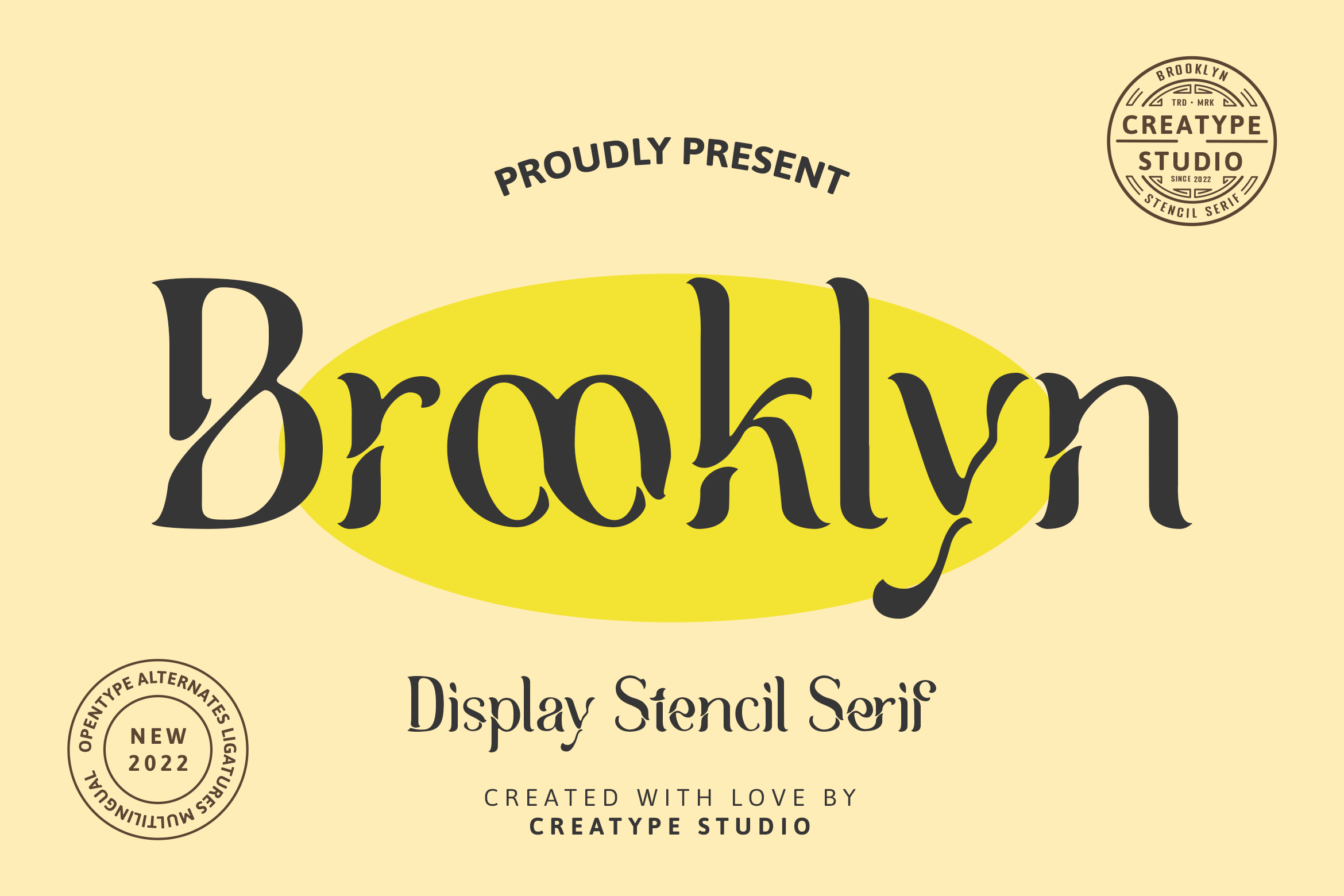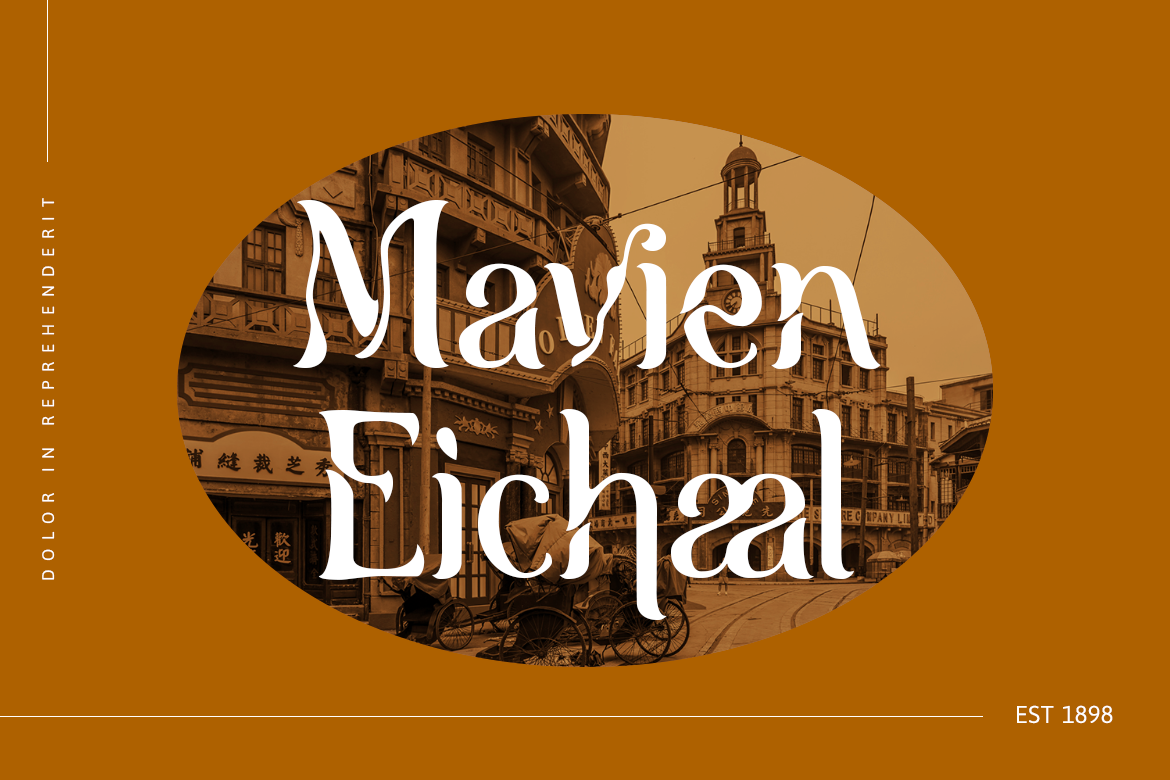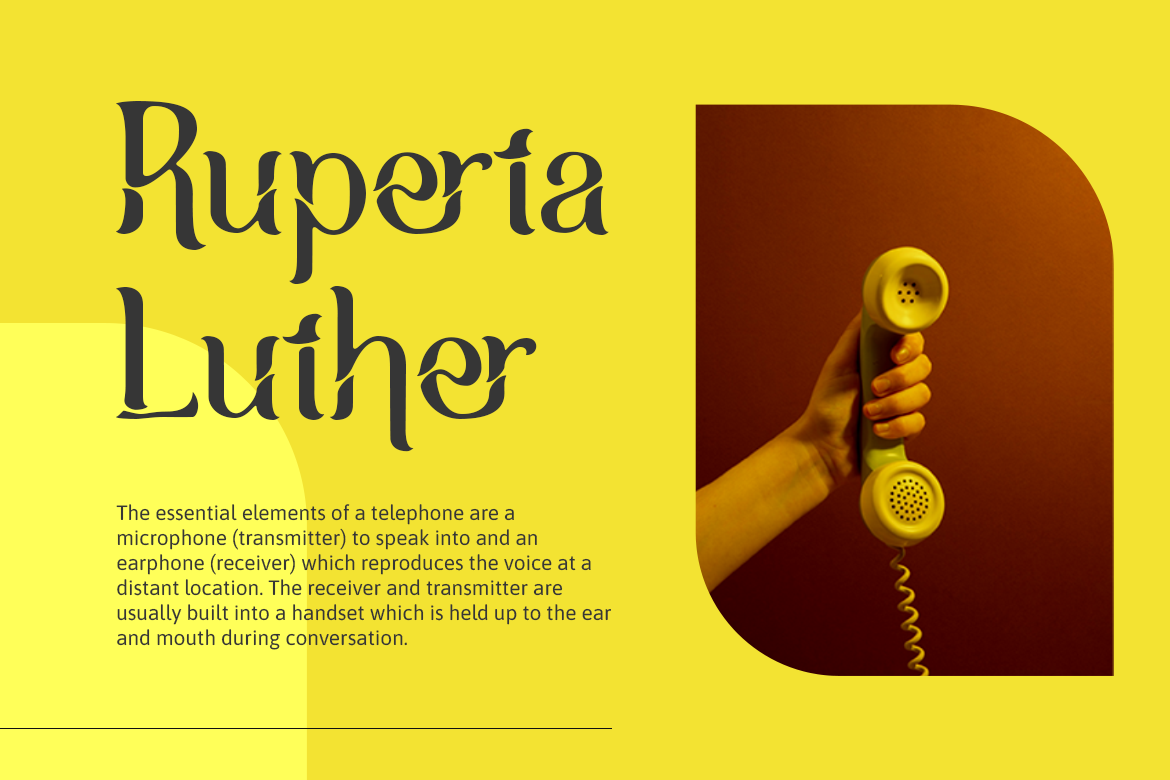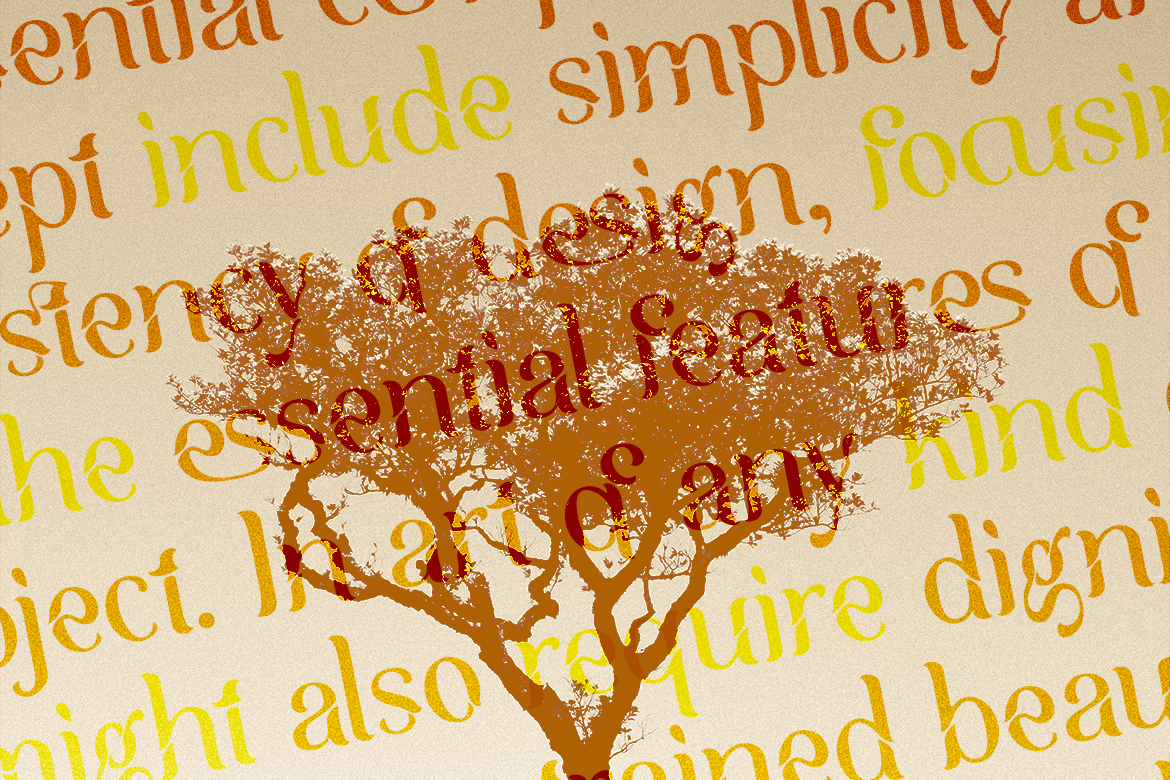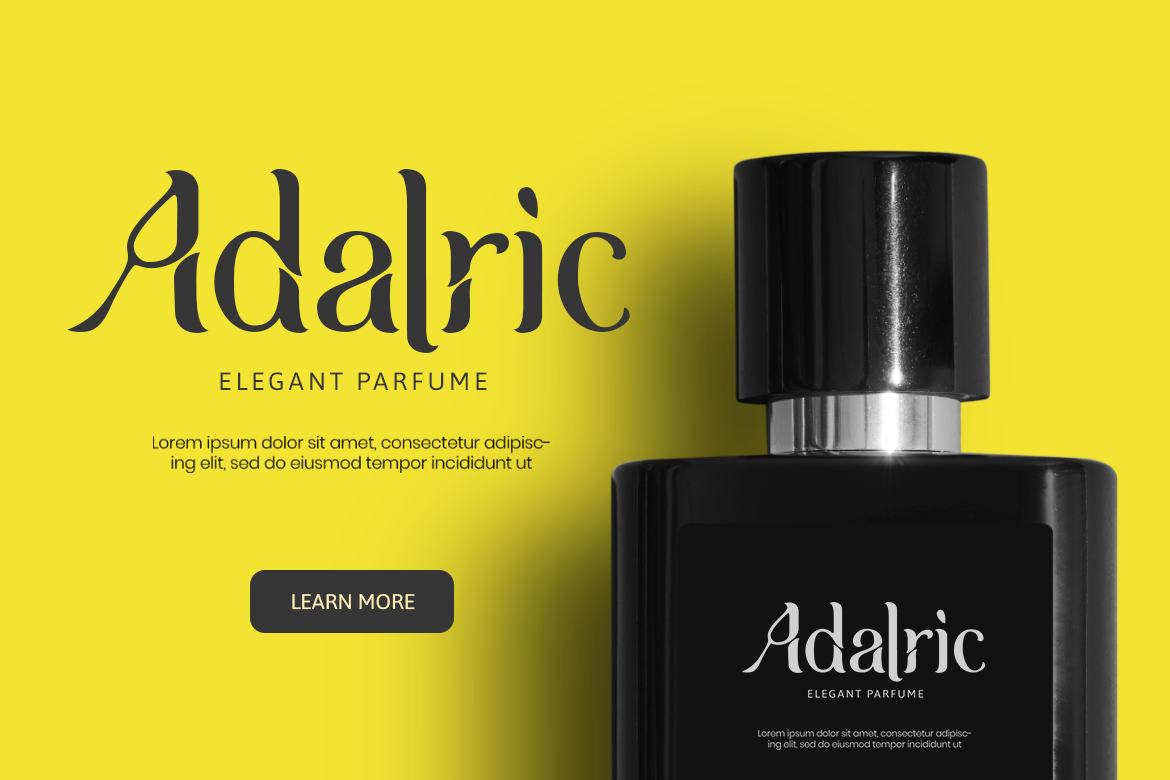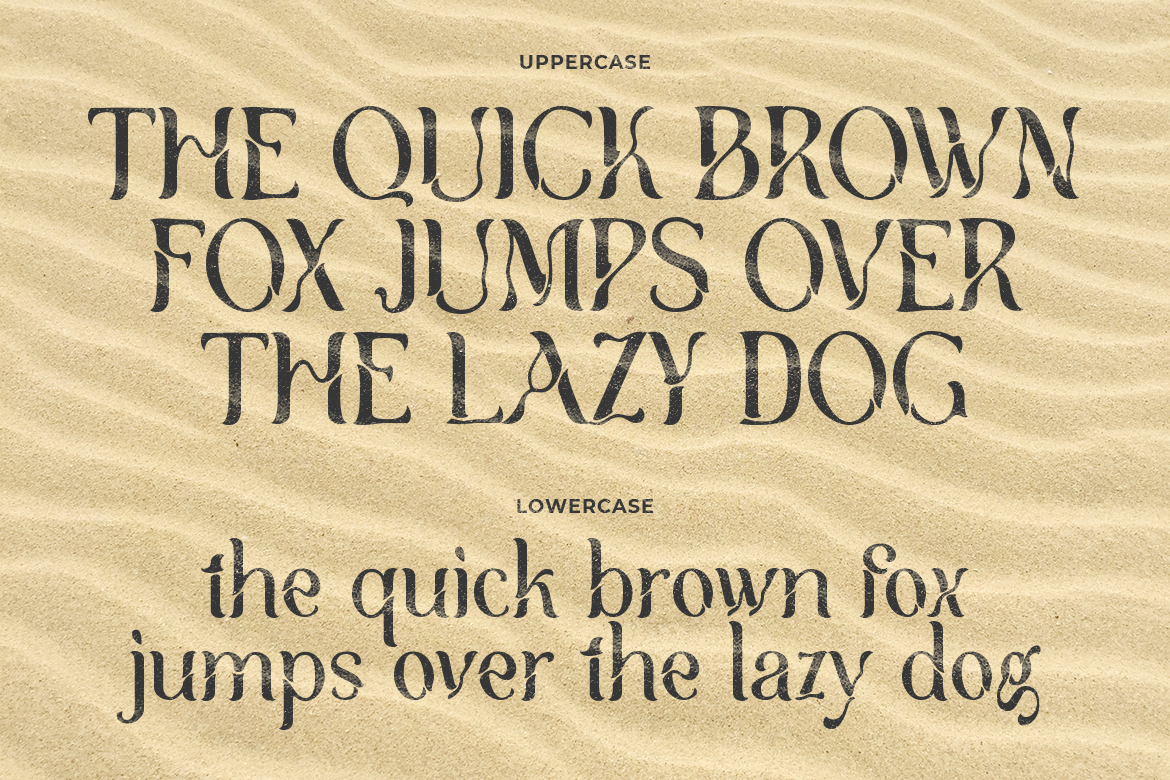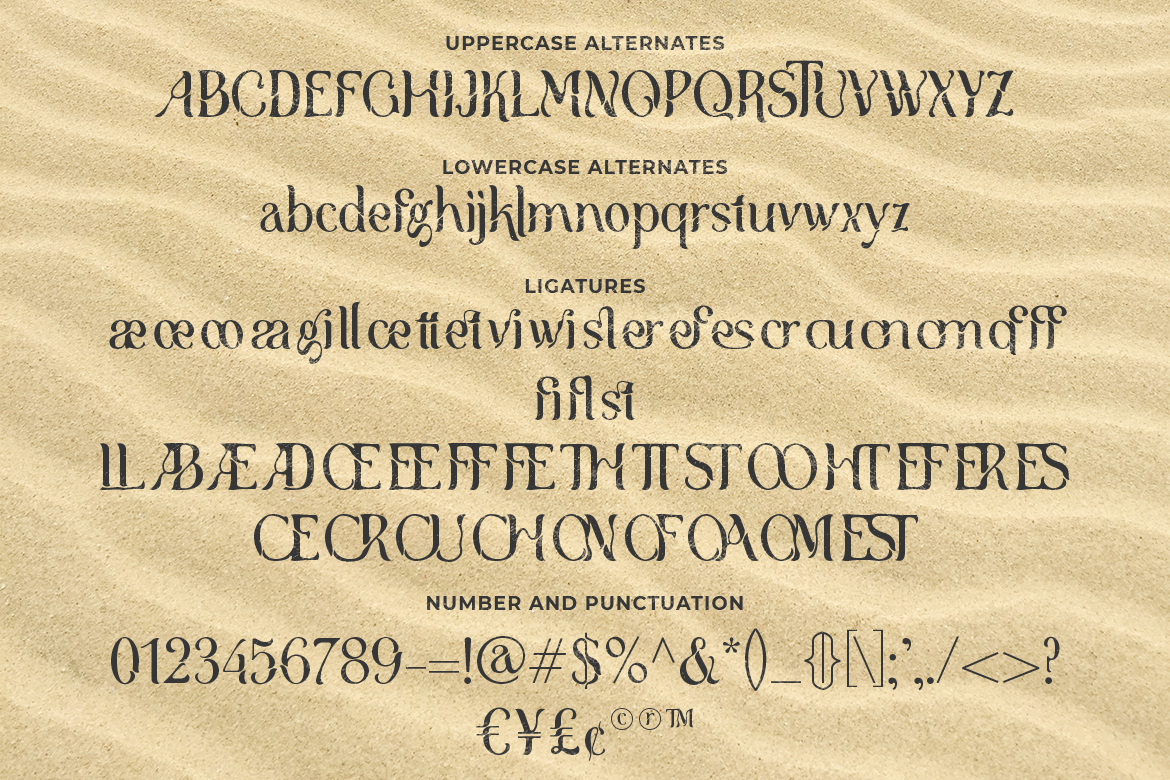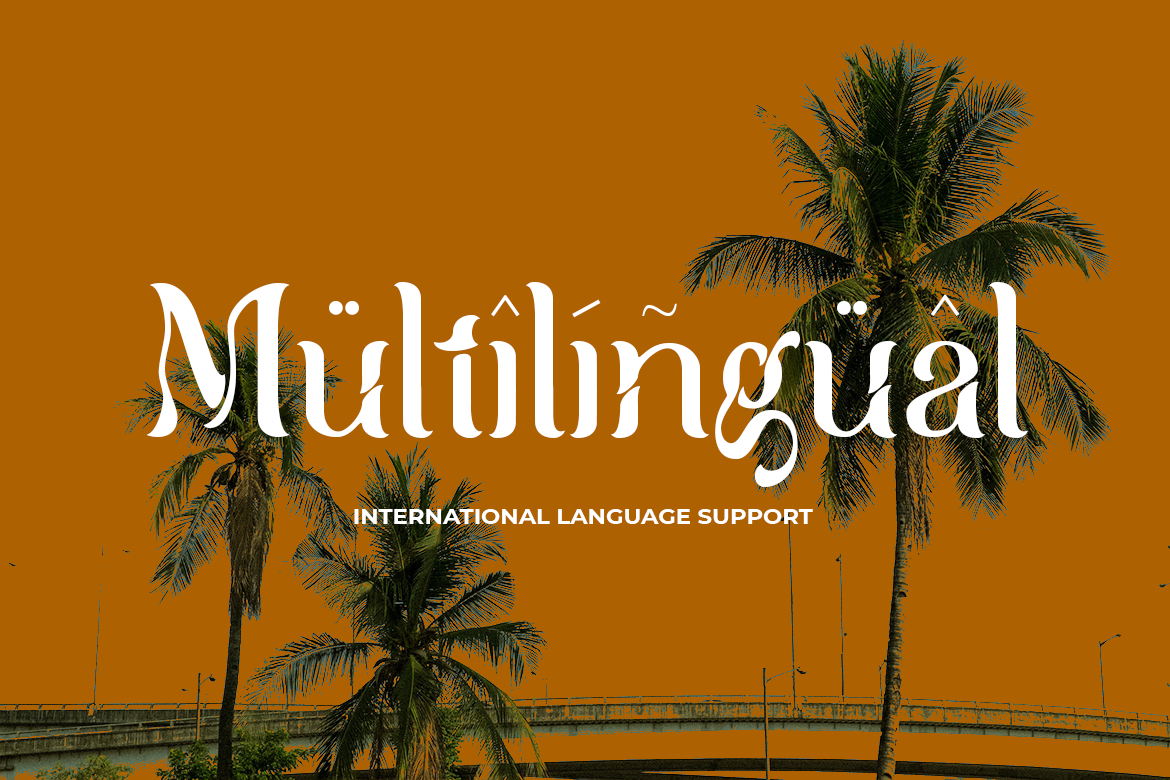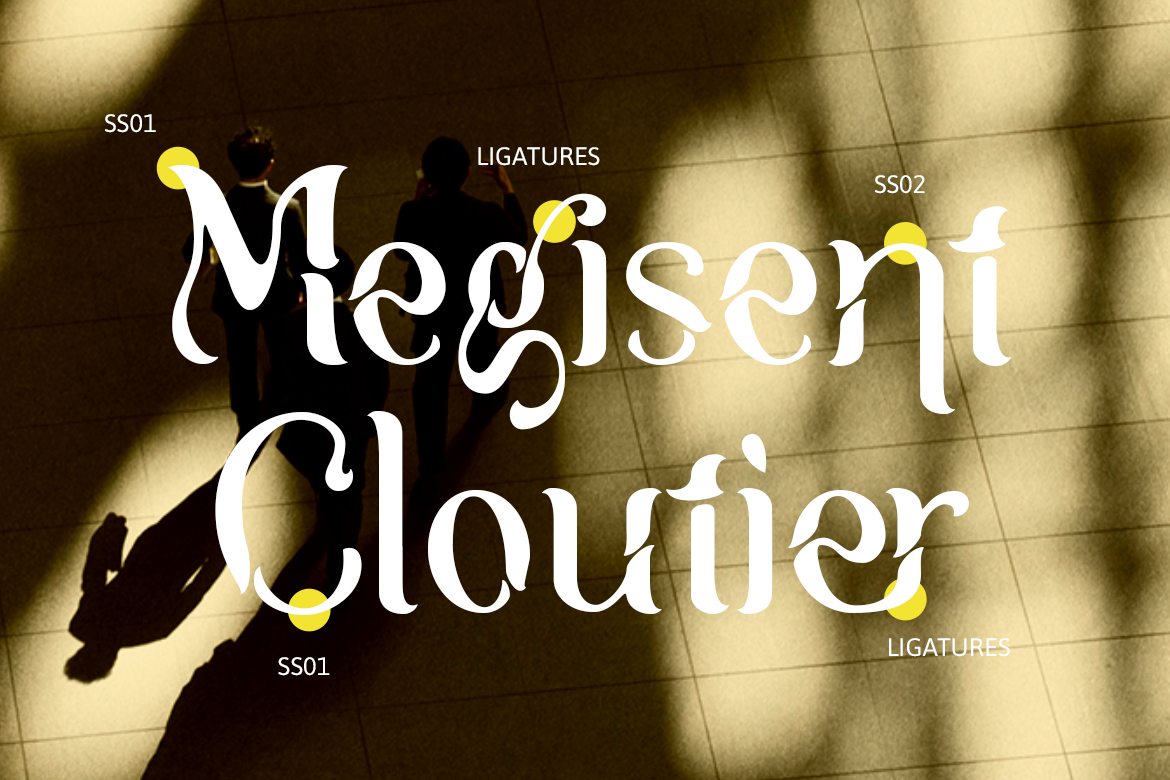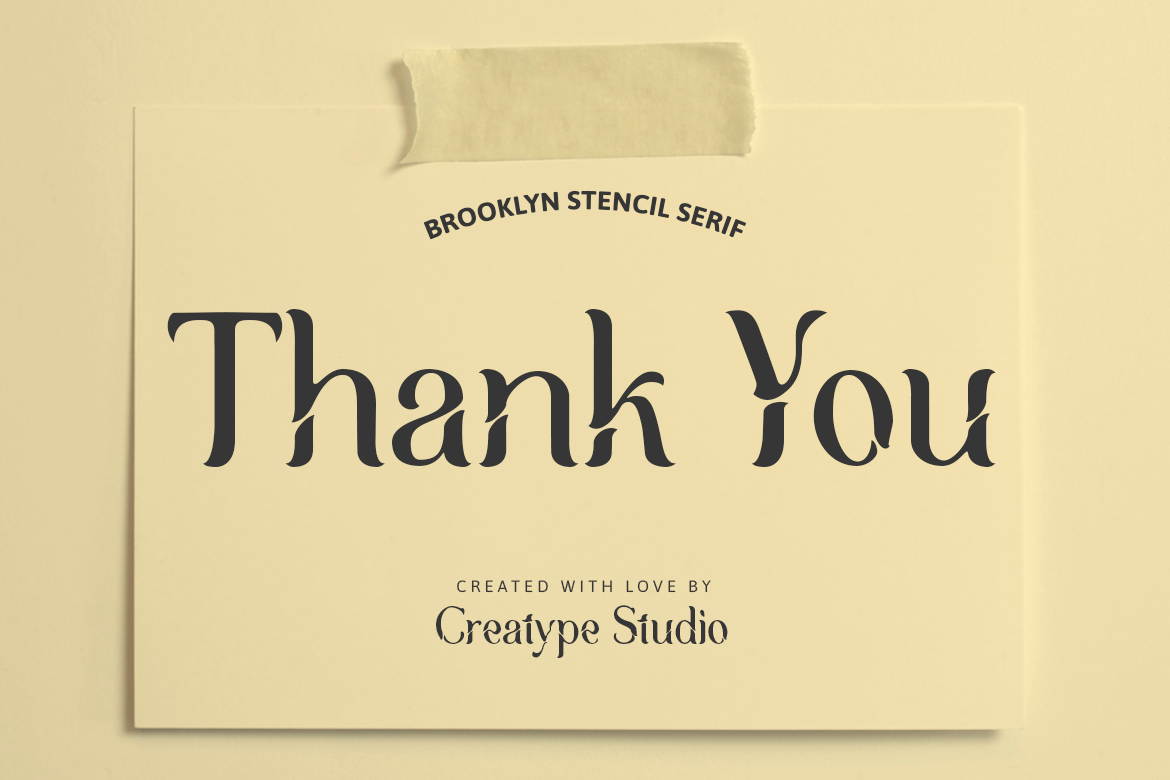
Brooklyn Display Stencil Serif
Brooklyn is a display stencil serif that has a chic and wavy look. Every Brooklyn character will spice up your design project.
Brooklyn is perfect for branding projects, logo, wedding designs, social media posts, advertisements, product packaging, product designs, label, photography, watermark, invitation, stationery and any projects that need handwriting taste.